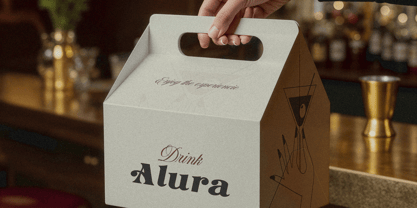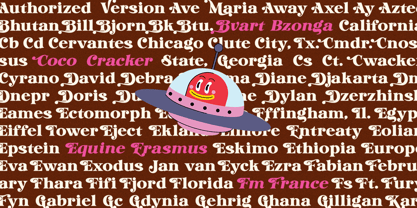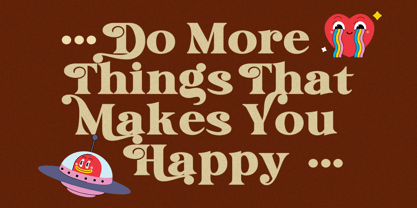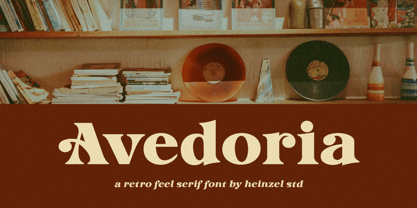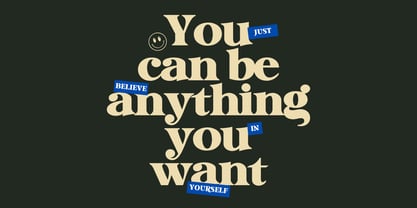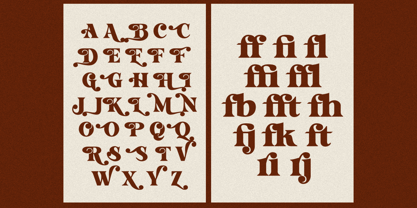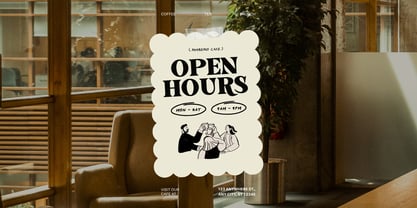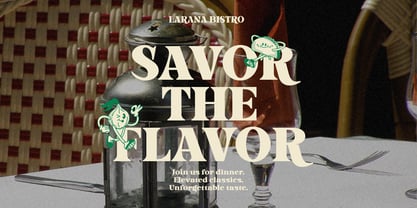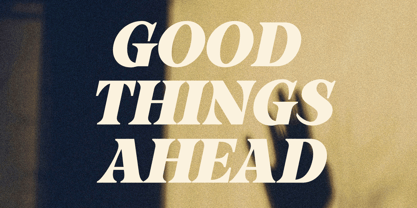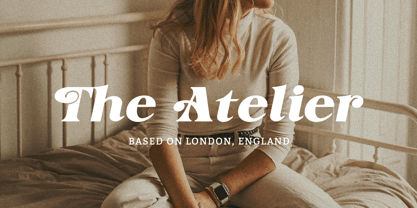
Avedoria
by Heinzel Std
The Avedoria Font Family was designed by Nofi Sofyan Hadi and published by Heinzel Std. Avedoria contains 2 styles and family package options. More about this family
Avedoria is a bold retro serif font inspired by vintage editorial typography, classic vinyl-era aesthetics, and nostalgic 70s design culture. Featuring soft curves, dramatic serifs, and stylish letterforms, this typeface brings a warm and timeless personality to branding, logos, posters, packaging, fashion editorials, café menus, album covers, and social media graphics.
Designed with a balance of elegance and retro charm, Avedoria delivers strong visual impact while maintaining readability. Its distinctive characters create a luxurious vintage atmosphere that works beautifully for both modern and classic-inspired projects. Whether you are building a nostalgic brand identity or creating eye-catching headlines, Avedoria adds authentic retro sophistication to every design.